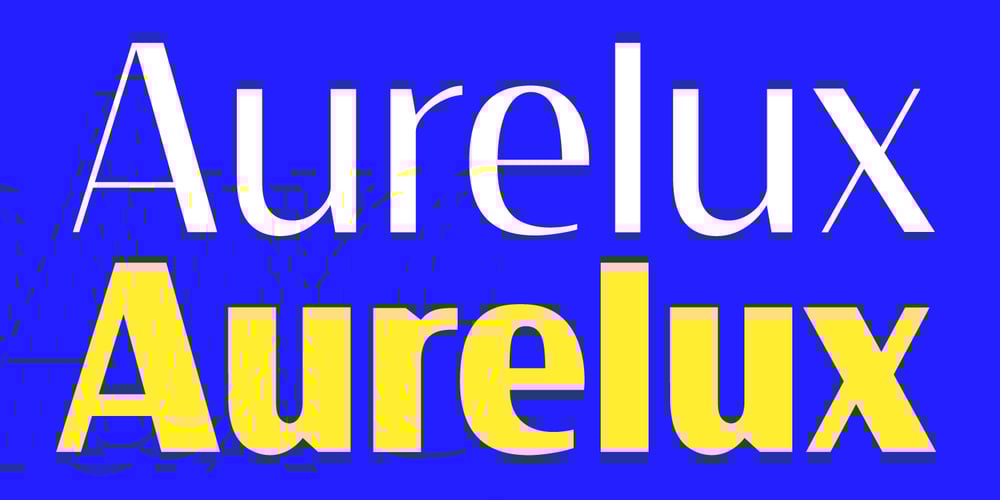
Aurelux Font Family was designed by Andrii Shevchyk and published by Andfonts. Aurelux contains 6 styles and family package options. Just imagine, You are searching for the font that should be modern and elegant at the same time, which is not possible with typical sans or serif fonts. So, Aurelux is what You need. This font in your library can be with you for decades, because it is useful and It’s open border to create graphic designs that require “modern but elegant touch”. : cafe, bar, theatre, spa, hotels, overall entertainment industry, travel, vintage, retro signs. Font is gender neutral. But, when You see Bold and black styles You understand that this font can be in the design of some industrial companies, factories, construction companies that want to show that they have history and heritage. You can contact me if You need questions: andfontscontact@gmail.com